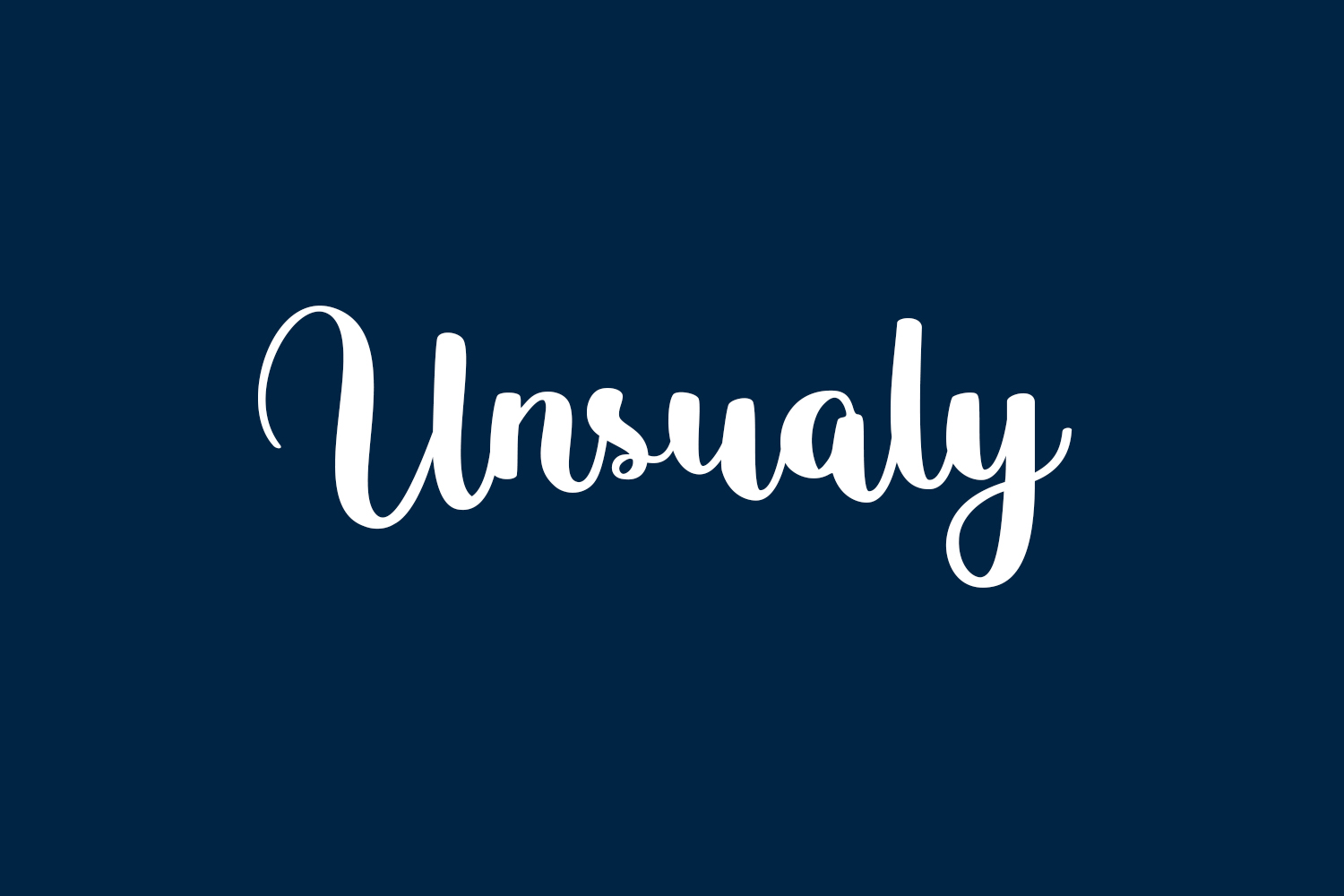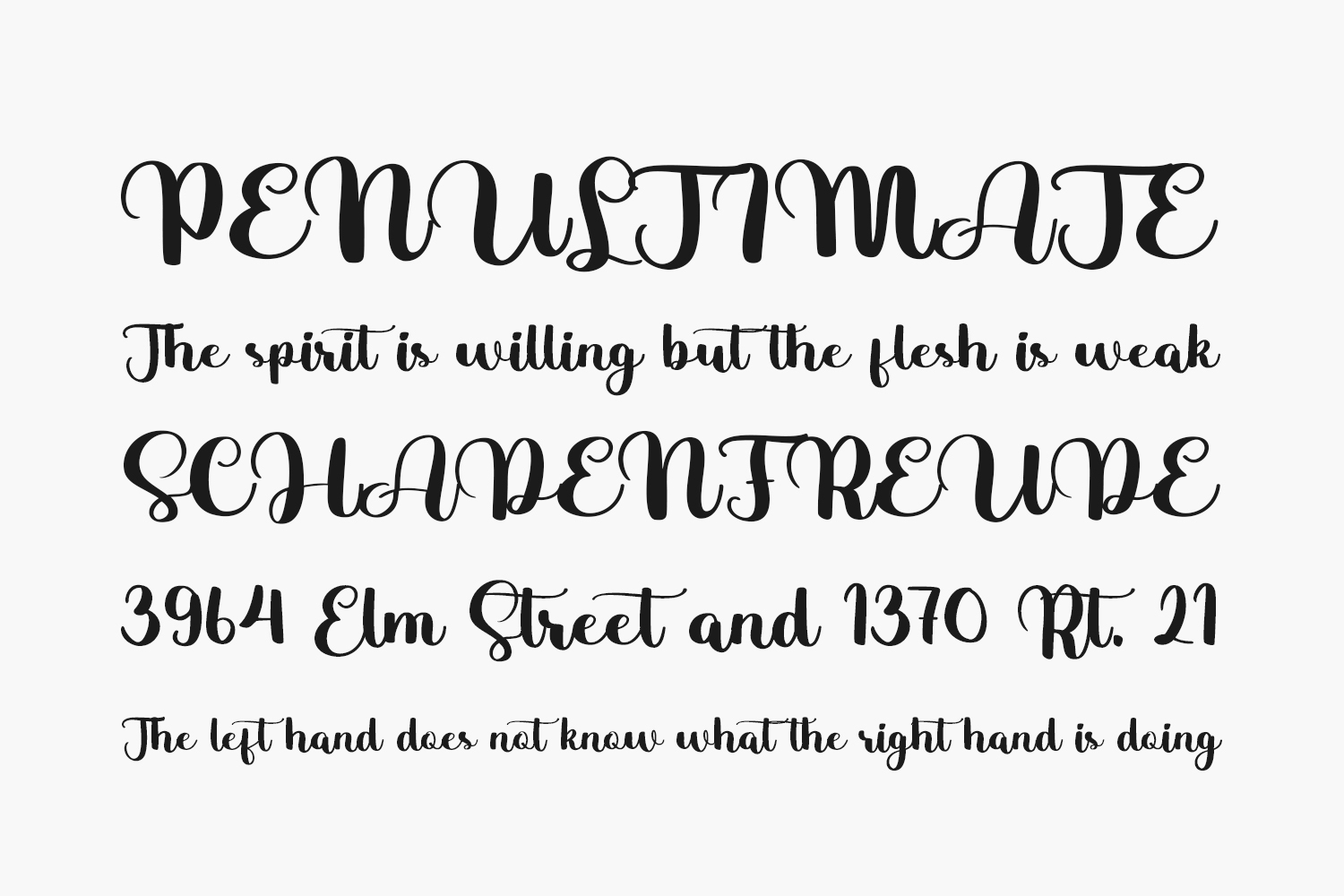
Unusually Free Font is like a breath of fresh air in a world of bland typography. It’s a rebellious and daring typeface that breaks all the rules, pushing the boundaries of design and creativity. This font is unapologetically unique, with each letter possessing its own character and personality, allowing designers to create text that truly stands out. It’s a font that demands attention, but in the best possible way – leaving a lasting impression on anyone who encounters it. With Unusually Free Font, you’re not just using a typeface – you’re making a statement. Unusually Free Font is free for personal use only. Please purchase the full version for commercial use.